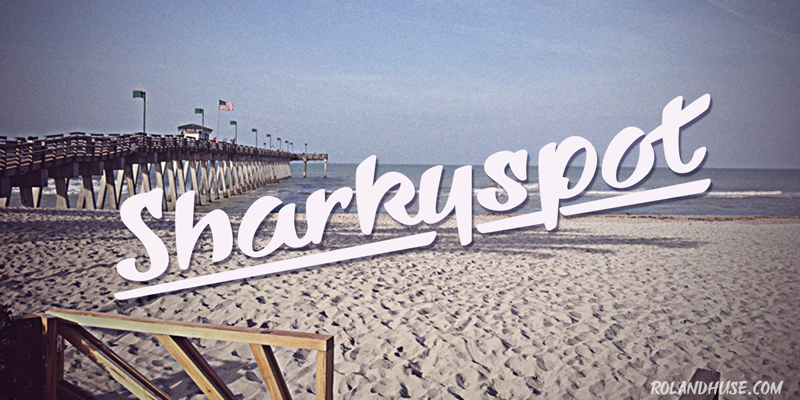
Preview and download Sharkyspot Font. Created by Runes & Fonts in Script Various styles with Demo license.
SHARKY SPOT DEMO is a demo version of a cartoon/comic style font. For commercial use or full version and license please visit http://www.rolandhuse.com ("downloads" menu) or MyFonts.com Please contatct me if you have any questions or feedback. You MAY NOT sell this font or claim them as your own. You MAY NOT edit or rename this font. You MAY NOT redistribute this font. Thank you & I hope you like this font, Roland http://www.rolandhuse.com https://www.facebook.com/pages/Runes-And-Fonts/123221817784772 |